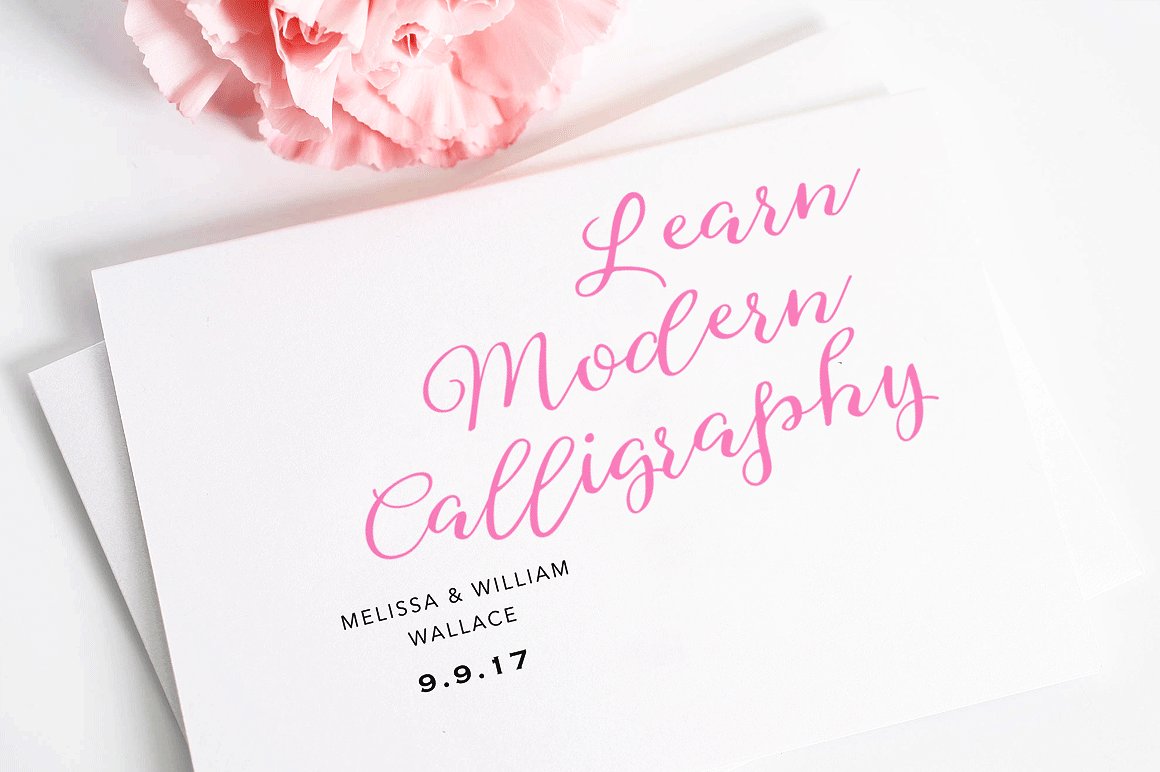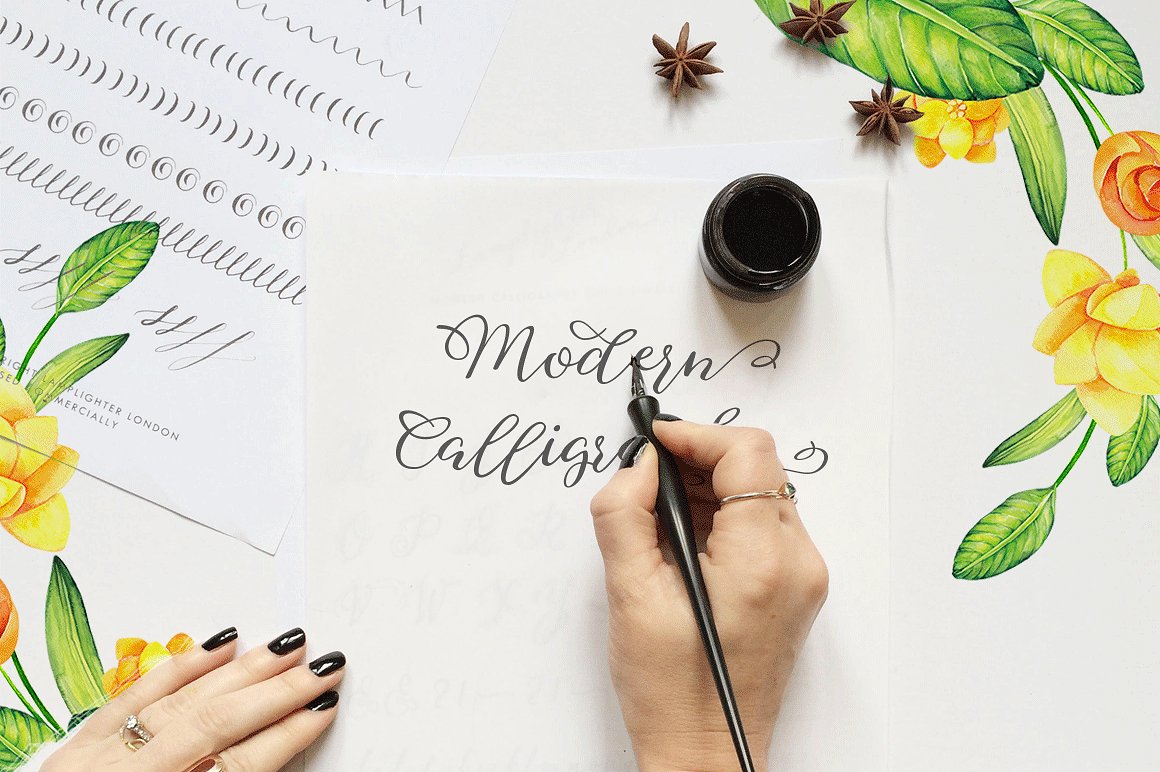
Sophia Script Font
Hi Font Lovers! Introducing Sophia! I am sure you will like it, add it right to your fonts collection. Rainwood designed by Ianmikraz studio. Sophia is a new handwritten stylish copperplate calligraphy fonts, combines from copperplate to contemporary typeface, classic and elegant touch. Perfect for logo design, product design, application design and for advertisung. Especially for a technial, modern and luxurious kind of field.